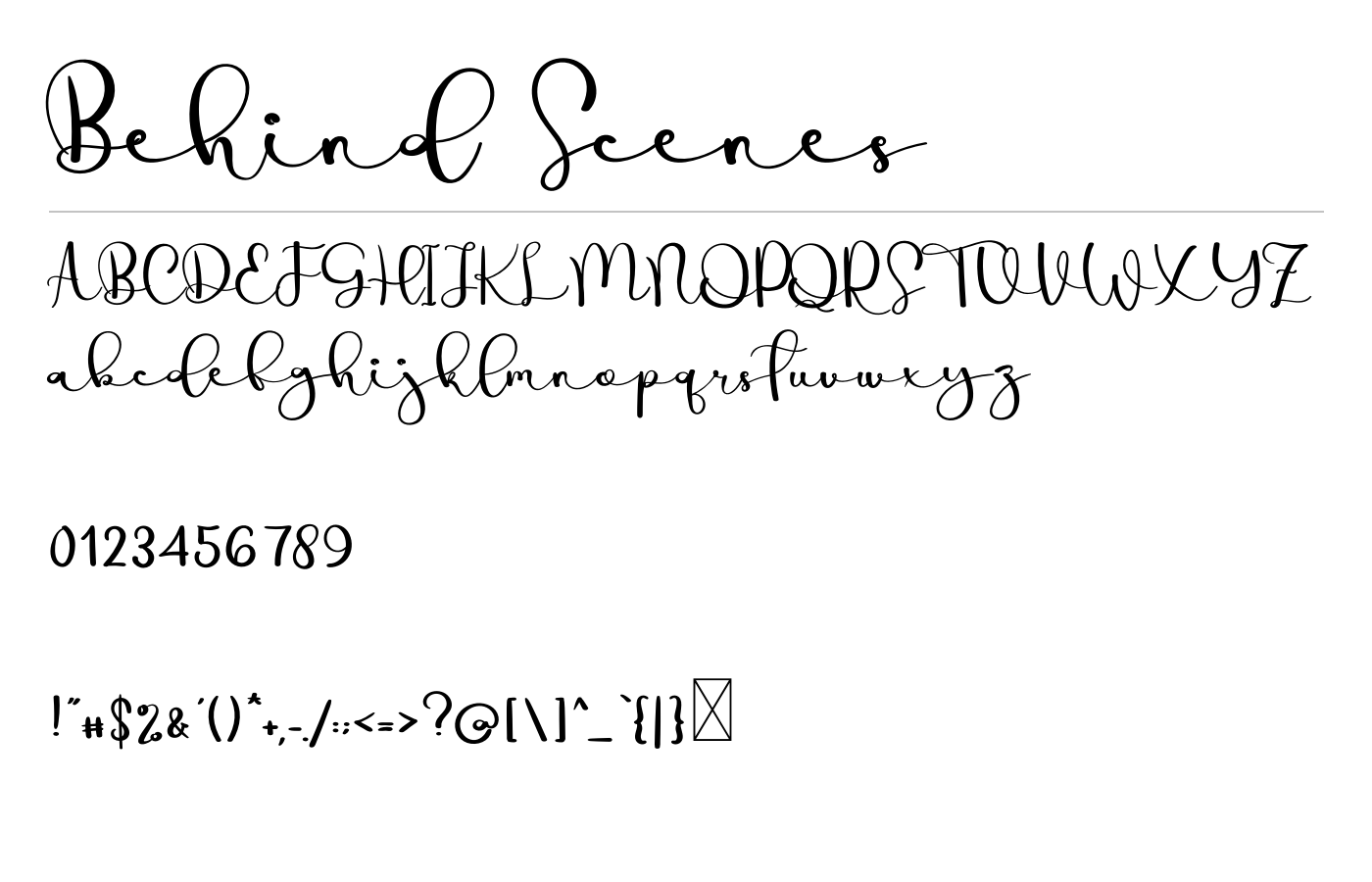
Behind Scenes is a delicate and whimsical script font with a light weight and elegant, flowing letterforms. It features high contrast with thin, smooth strokes and playful, looping details that give it a charming, handwritten feel, perfect for invitations, branding, and feminine design projects. This font works beautifully in creative, casual contexts where a personal and stylish touch is desired.
Behind Scenes Font
About Behind Scenes Font